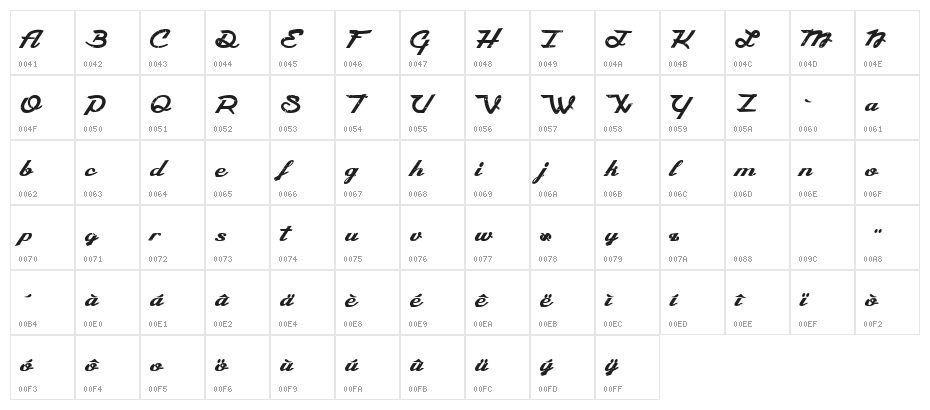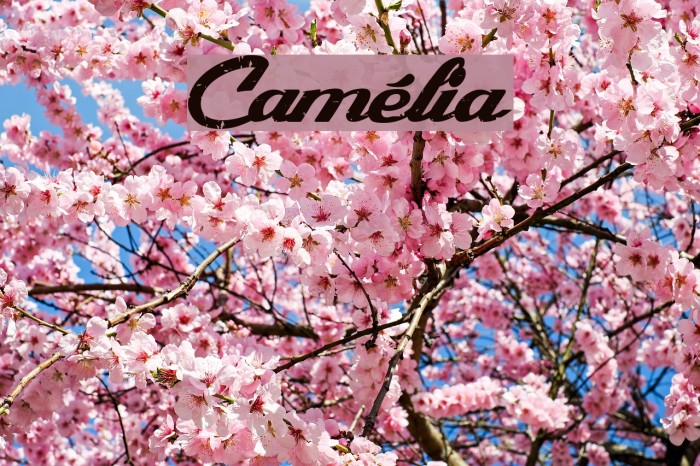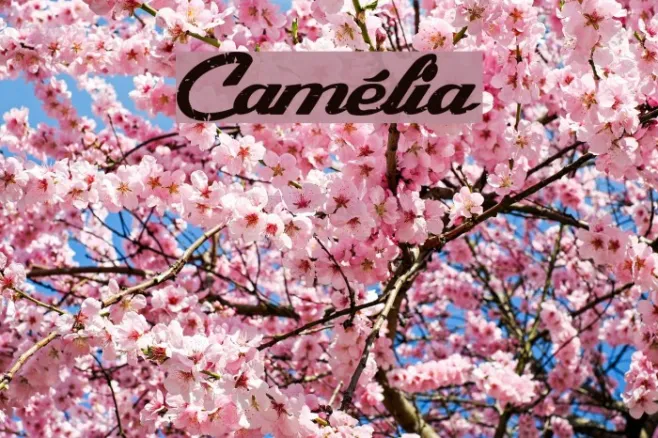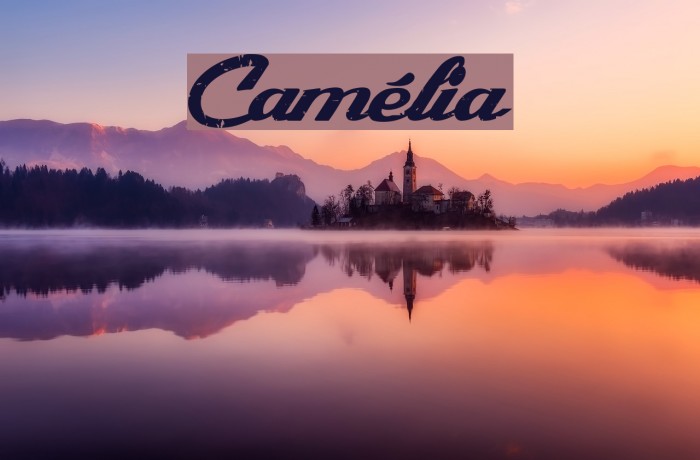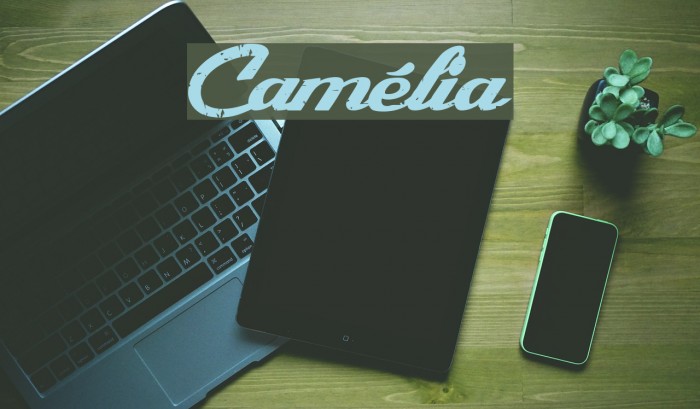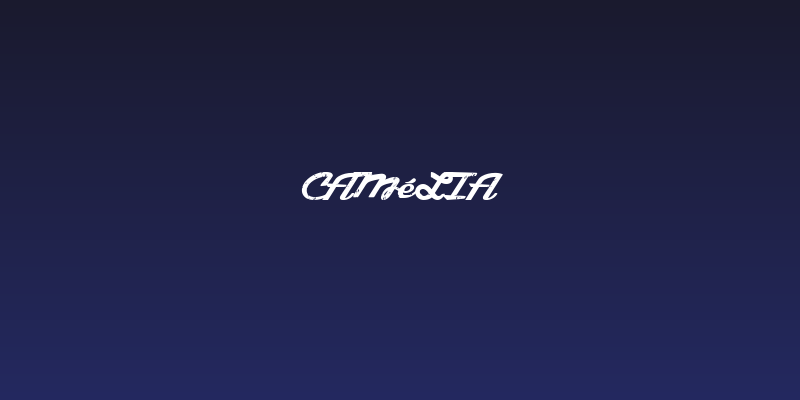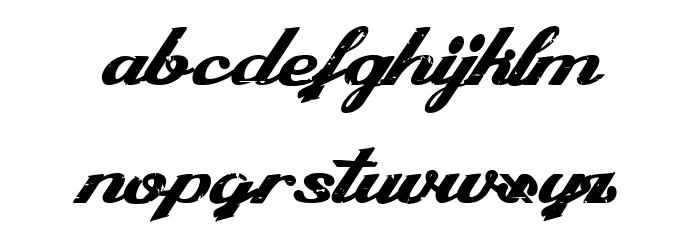
Camélia Font
Camélia Description
This font features a dynamic and energetic script style with a distinct slant, giving it a sense of movement and fluidity. The characters are interconnected, creating a cohesive and flowing appearance. The strokes are bold and expressive, with a slightly rough texture that adds a touch of rustic charm. The uppercase letters are prominent and commanding, while the lowercase letters maintain a consistent flow. This font's unique style makes it suitable for projects that require a personal and artistic touch.
| Proposed Projects | Ideal for branding, invitations, greeting cards, and artistic posters. |